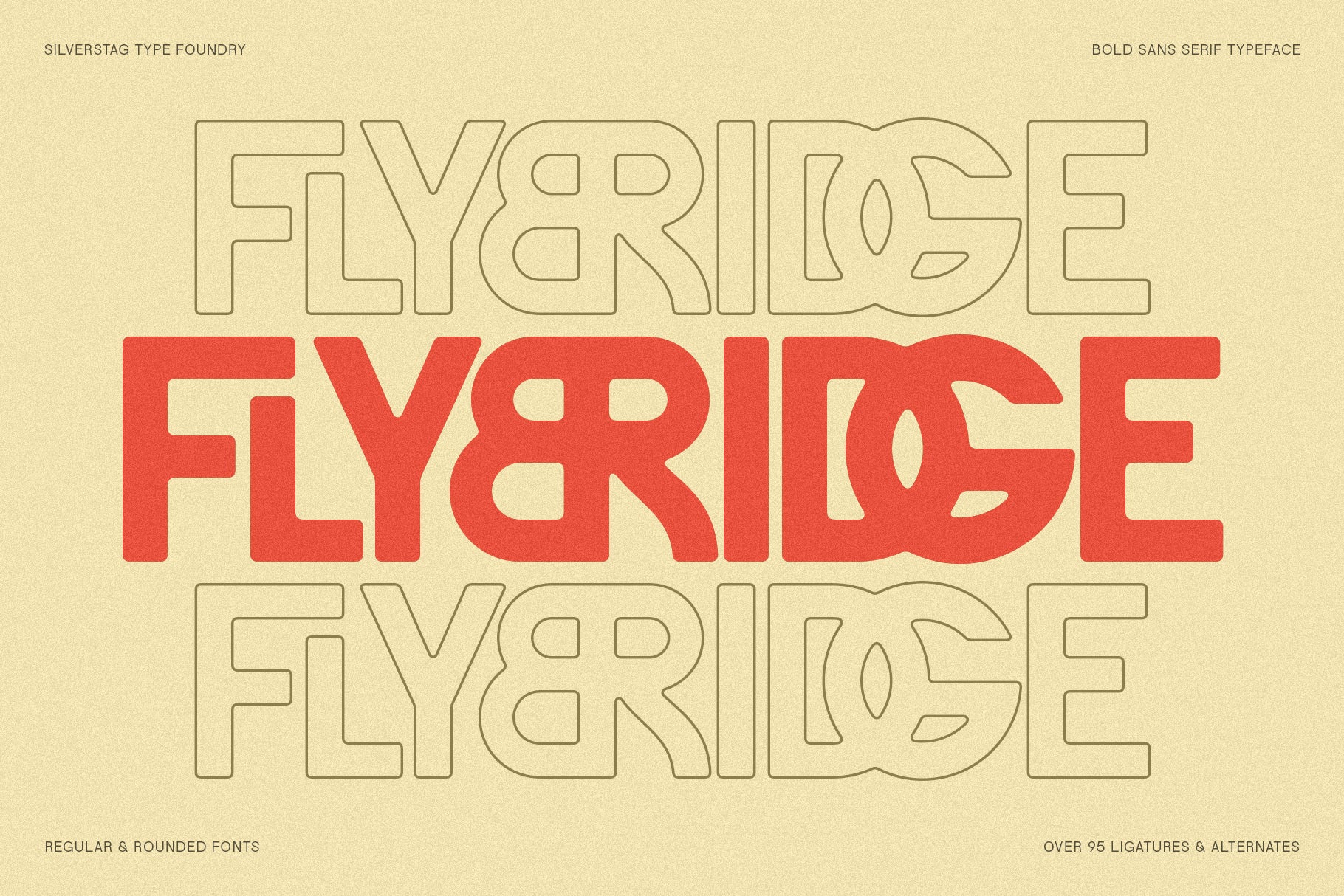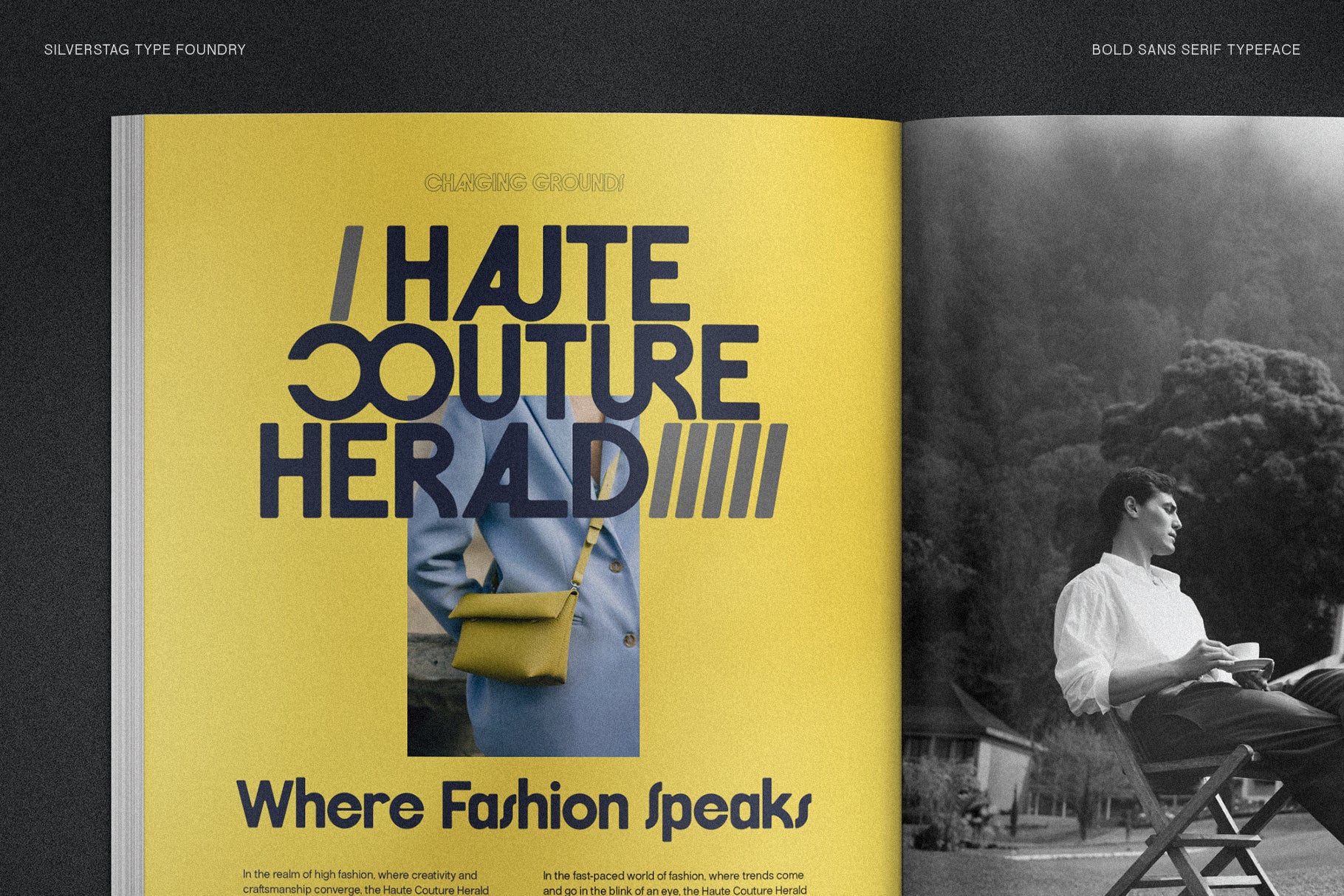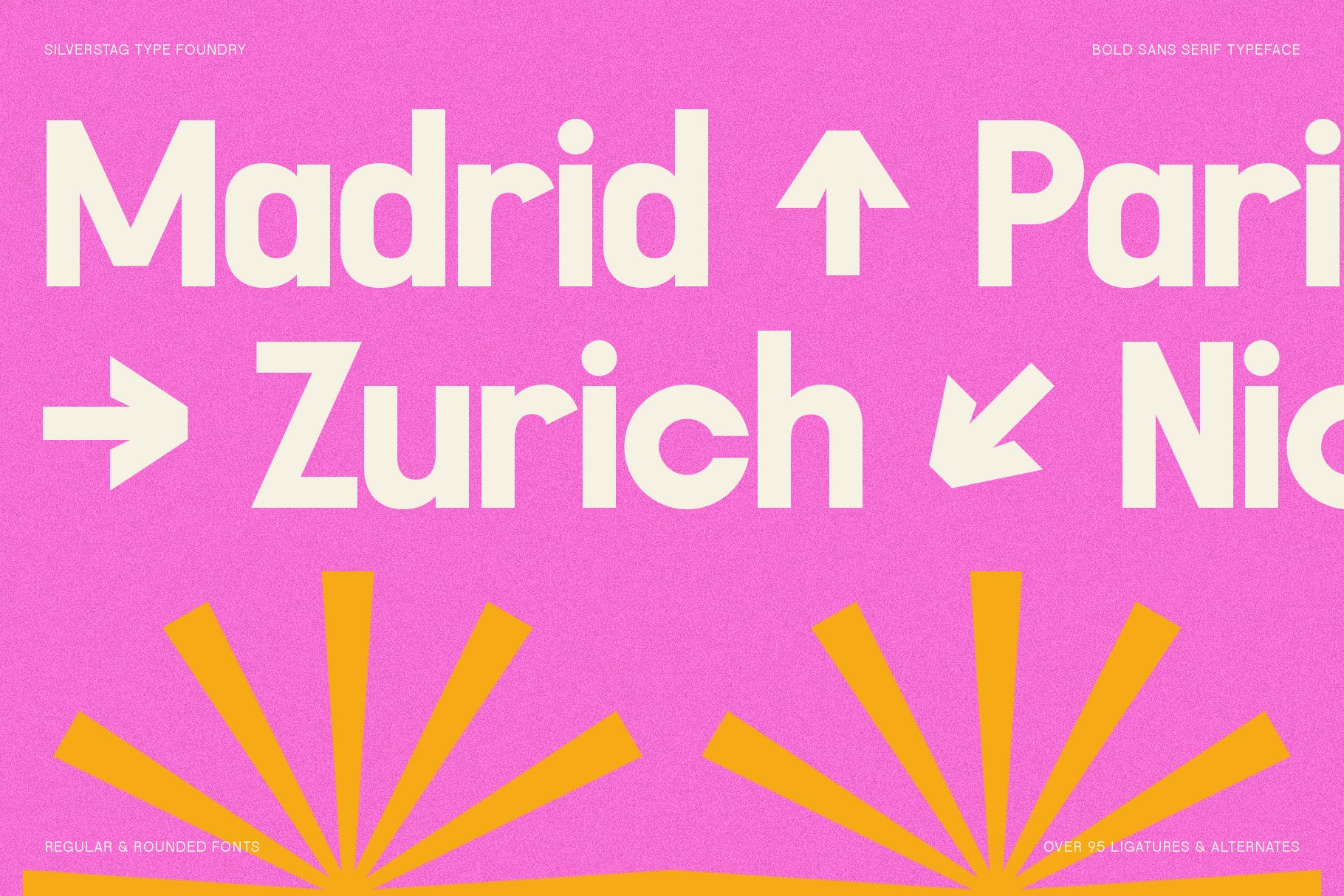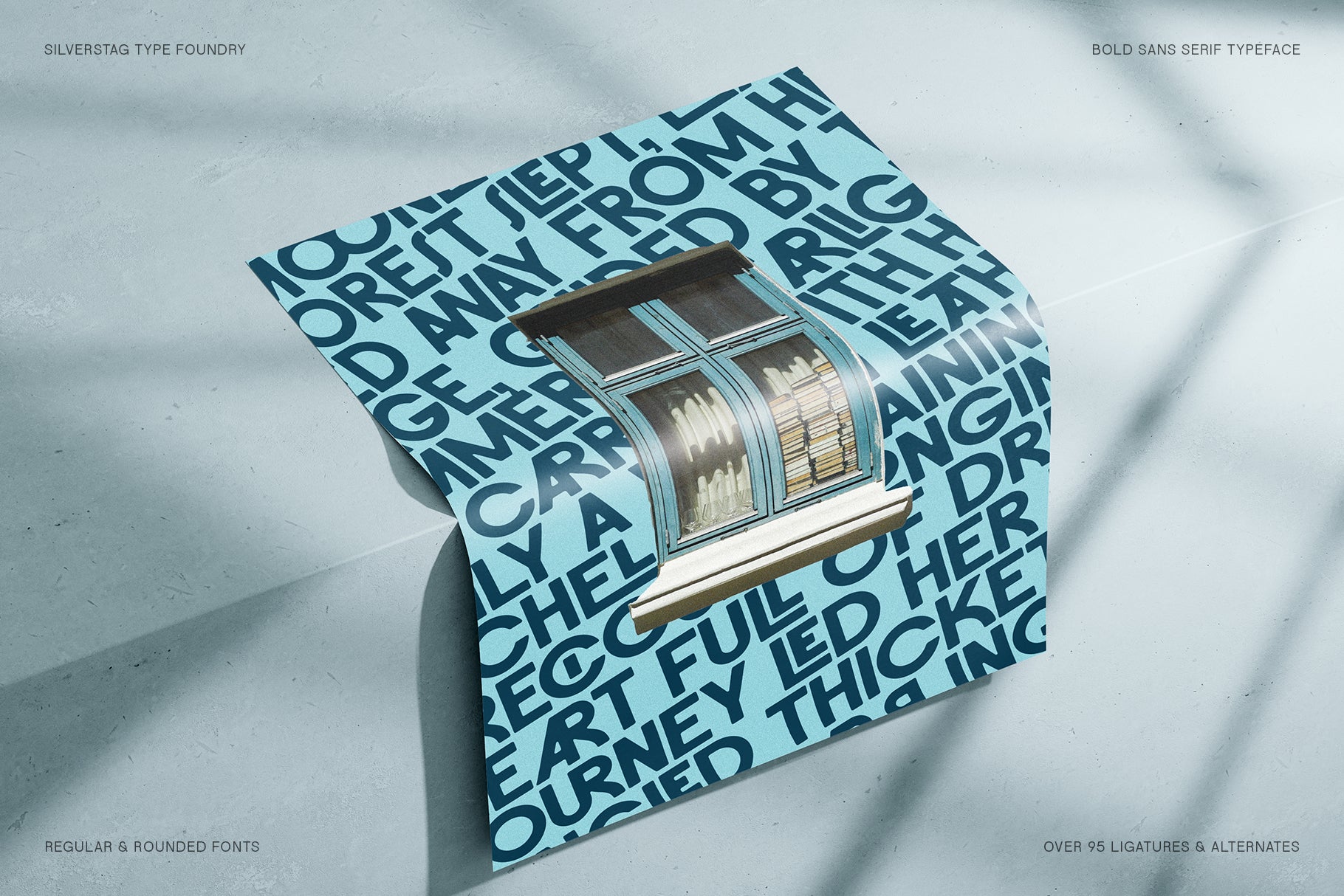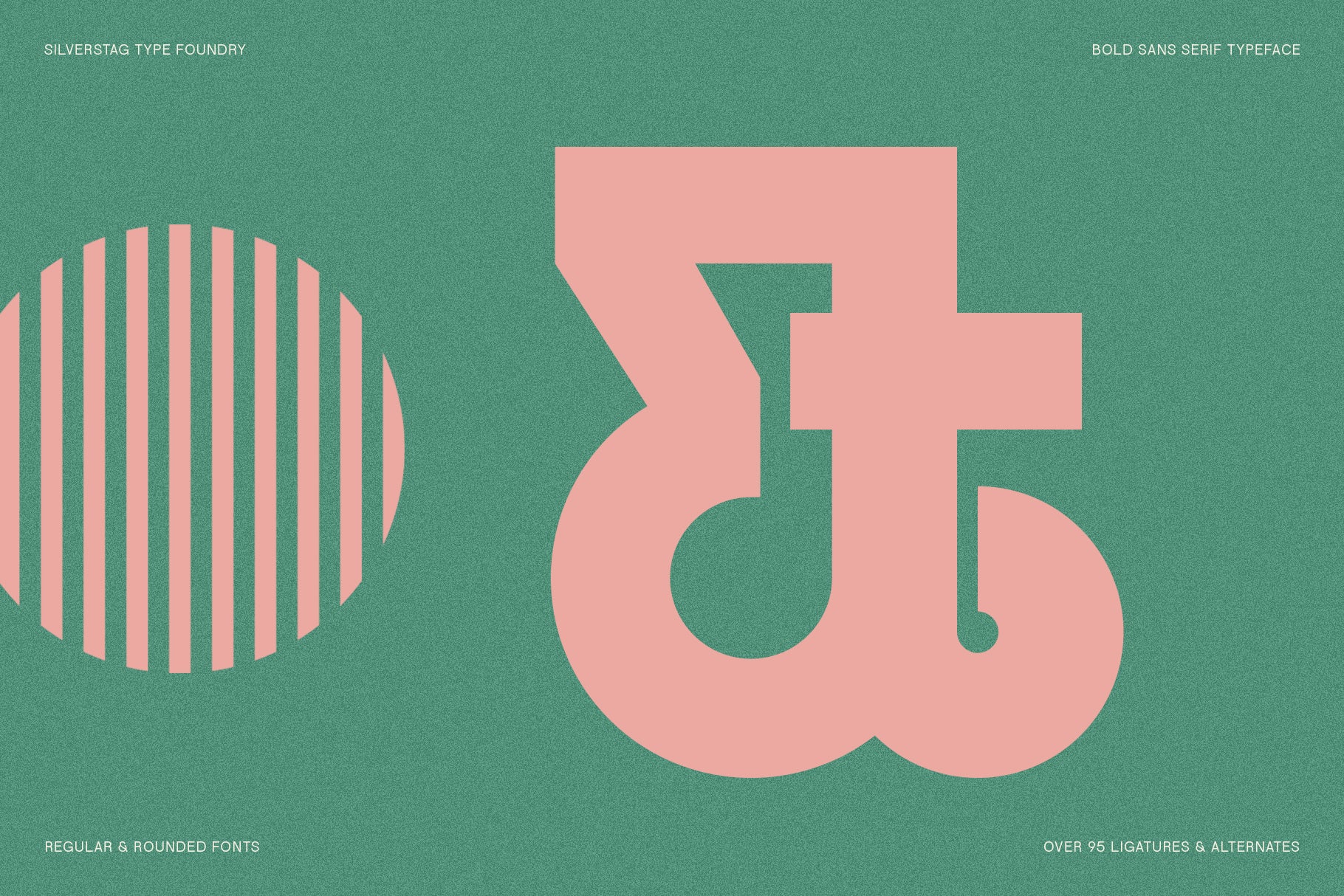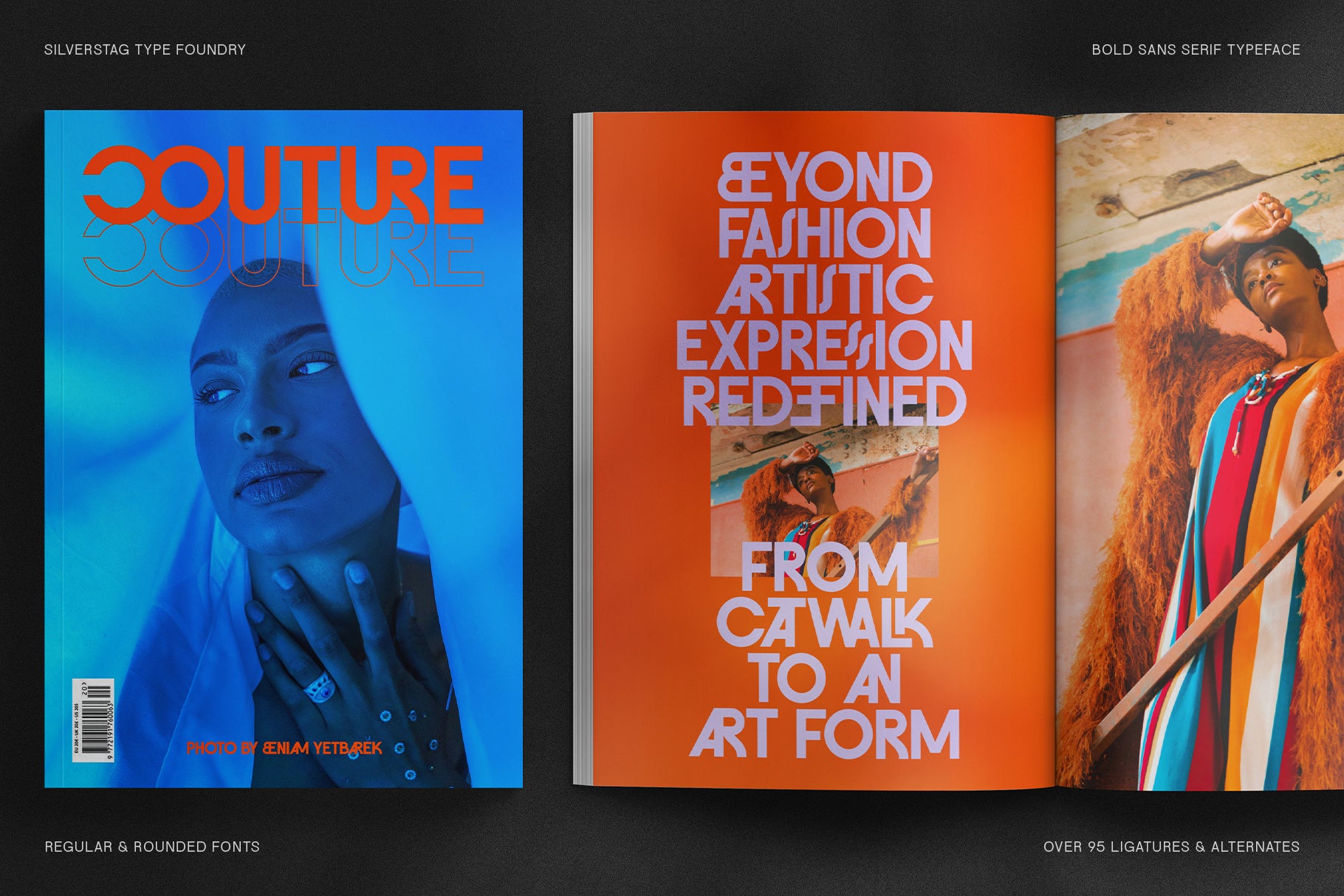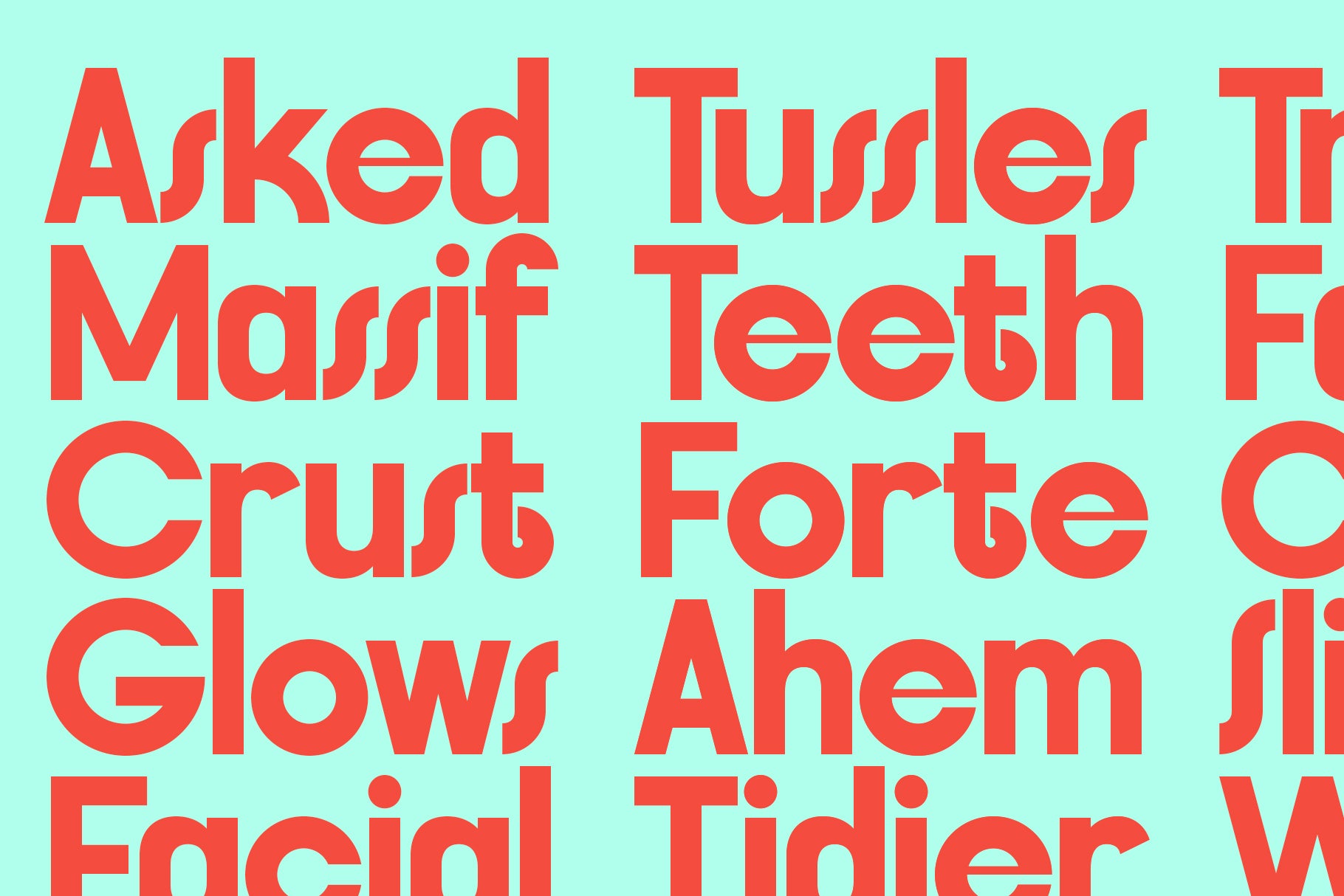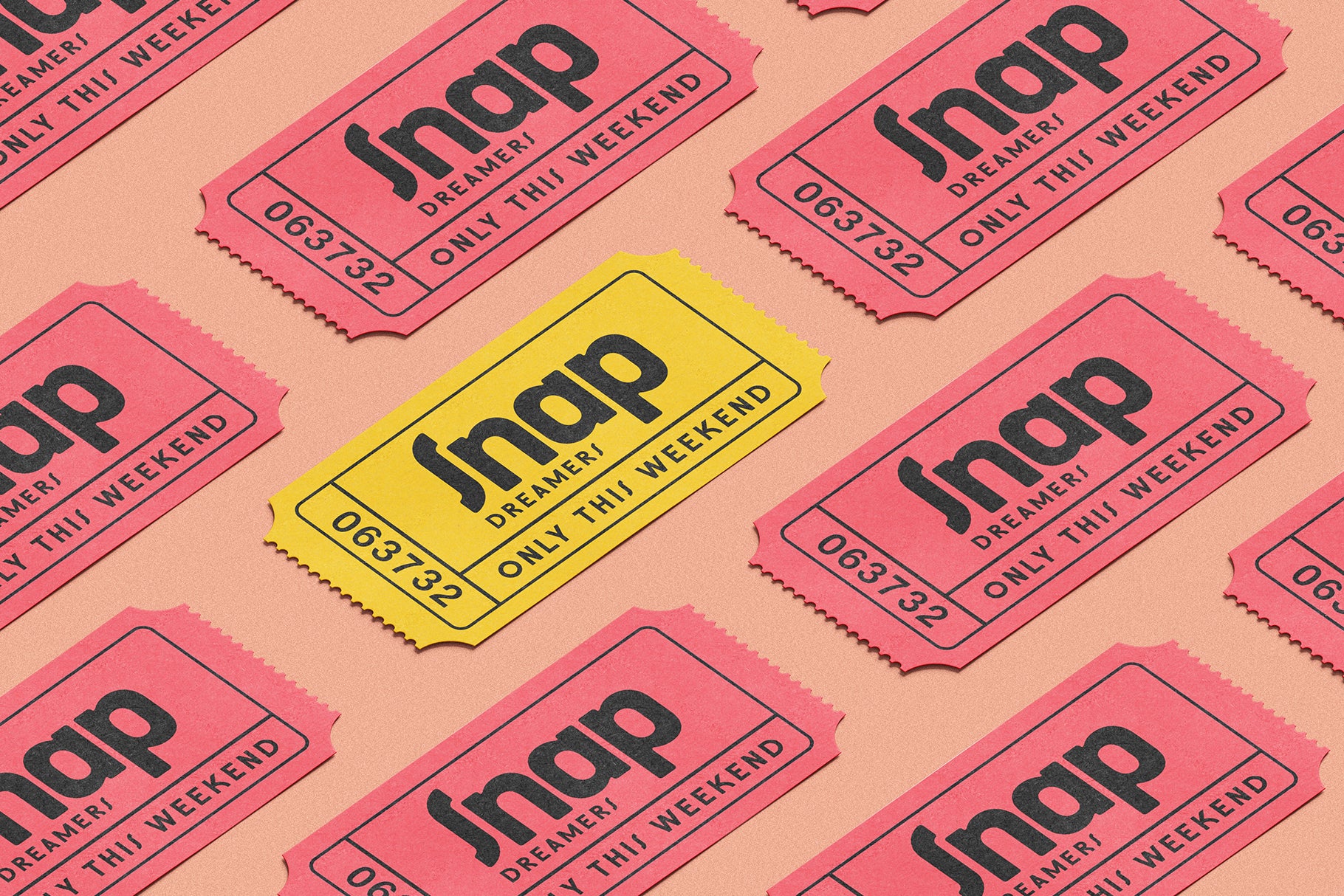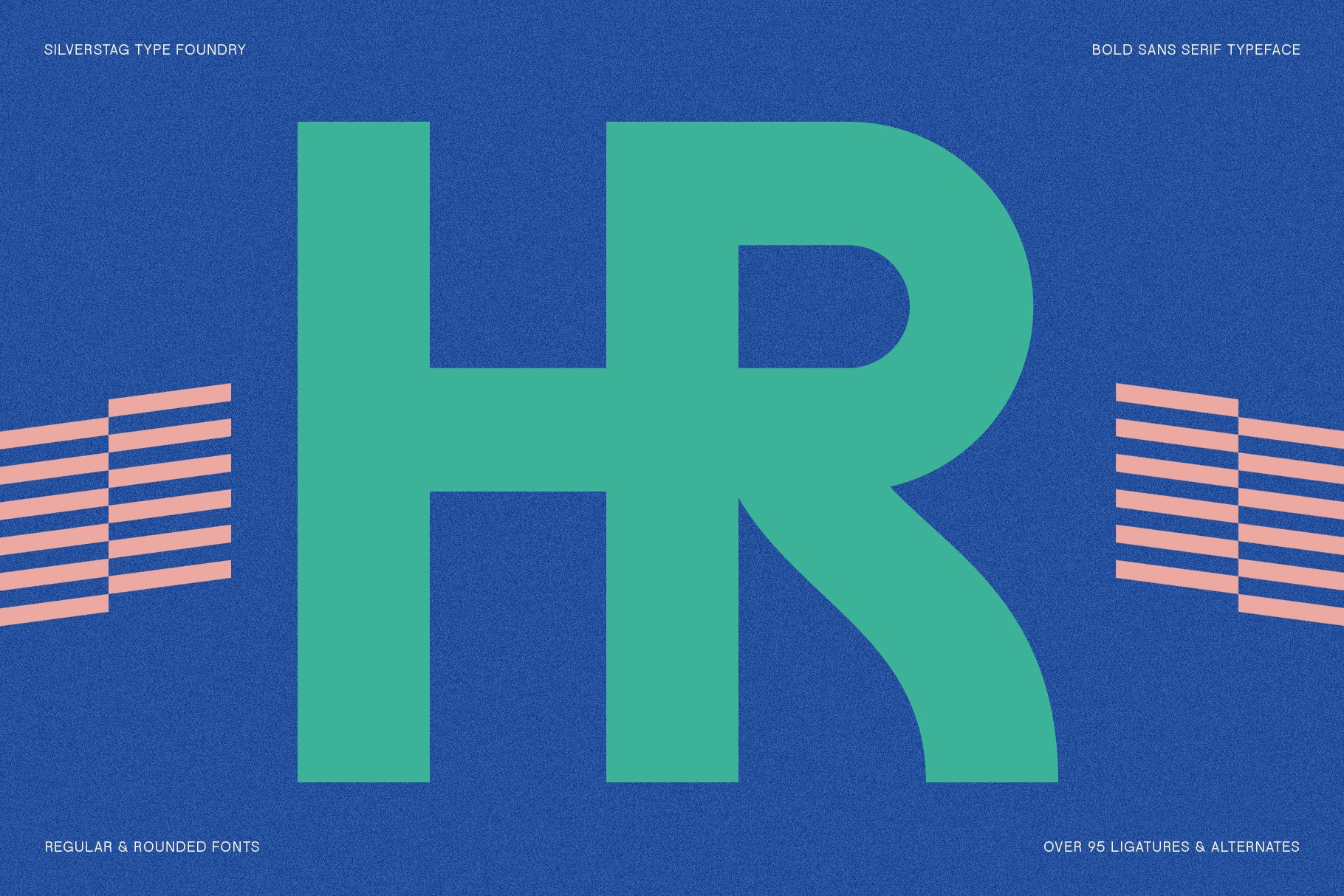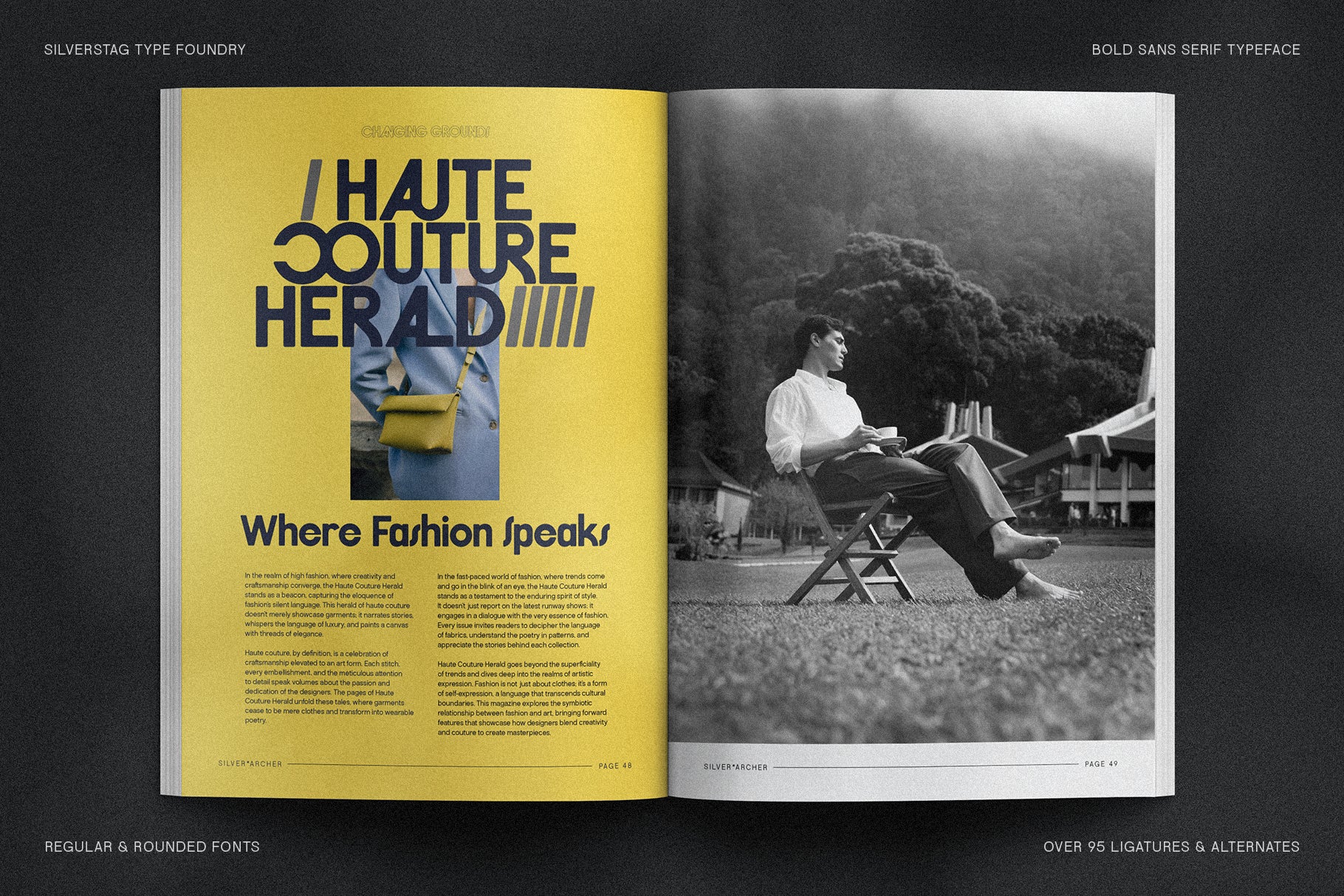
FlyBridge is a bold, expressive sans serif typeface designed to make statements that stick. With over 95 custom ligatures and four distinct styles—Regular, Outline, Rounded, and Rounded Outline—FlyBridge offers powerful versatility for modern branding, posters, headlines, and digital design.
Built to grab attention, FlyBridge combines strong geometry with creative ligature...
FlyBridge is a bold, expressive sans serif typeface designed to make statements that stick. With over 95 custom ligatures and four distinct styles—Regular, Outline, Rounded, and Rounded Outline—FlyBridge offers powerful versatility for modern branding, posters, headlines, and digital design.
Built to grab attention, FlyBridge combines strong geometry with creative ligature detail, allowing you to create dynamic, unique word shapes that stand out across print and screen. From high-impact logos to scroll-stopping social content, this font brings personality, clarity, and style to every project.